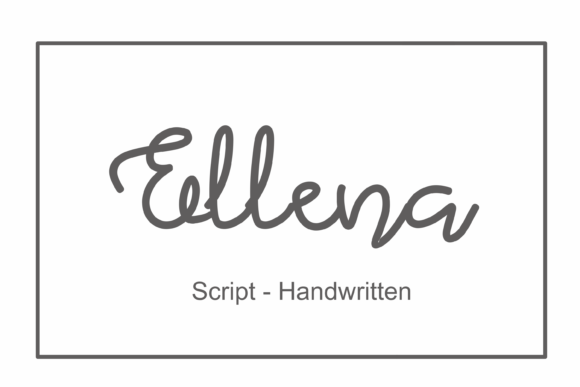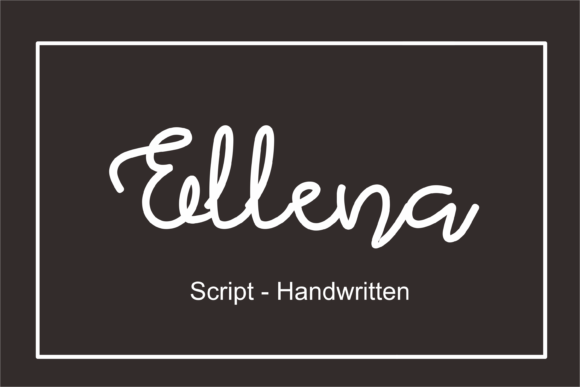
Ellena Font
About Ellena Font
Ellena is a magical handwritten font carefully created with a touch of elegance. This font is the perfect fit for all of your logos, branding, social media, and crafty DIY projects.